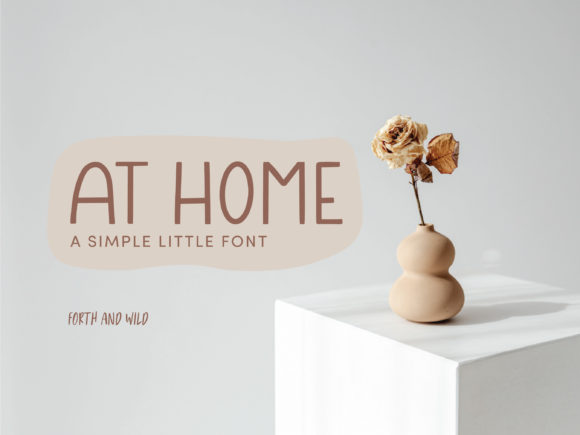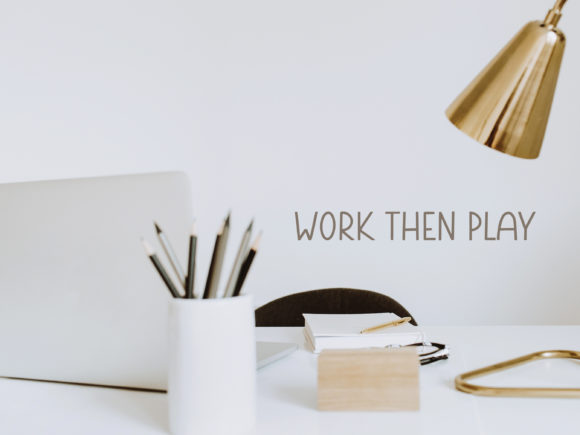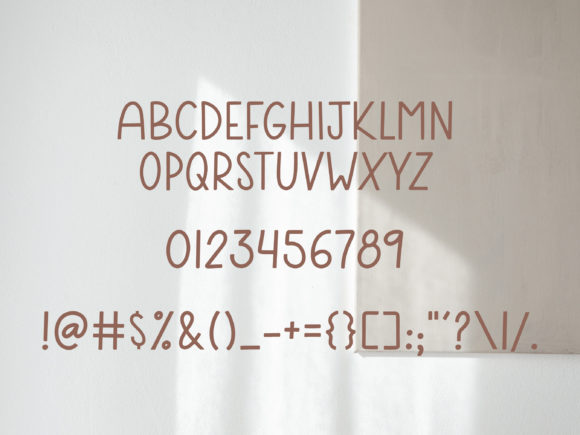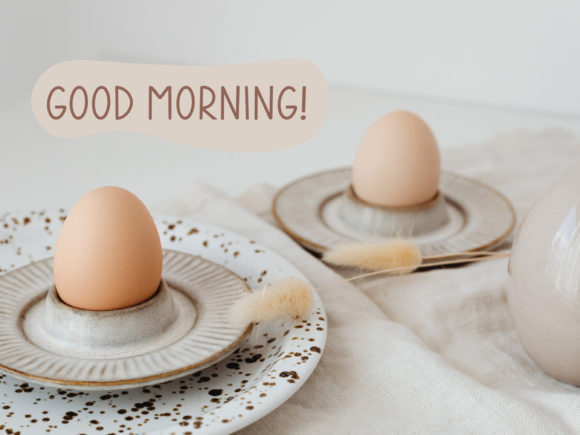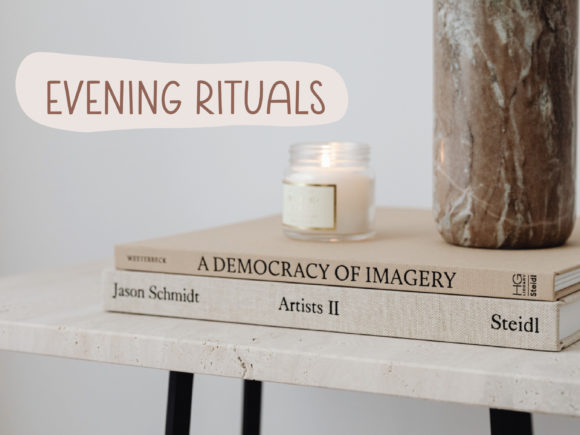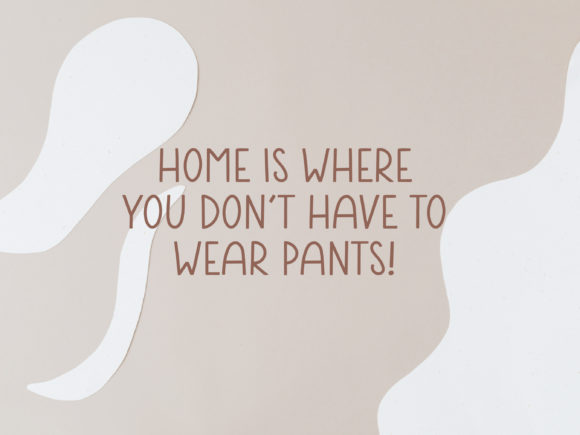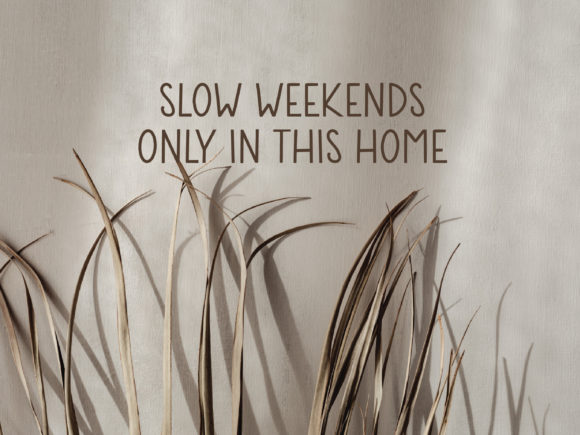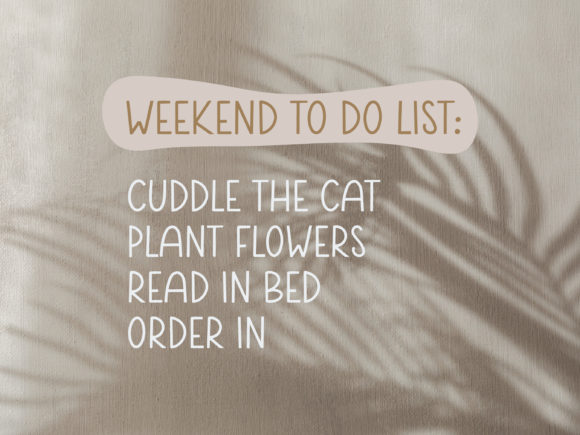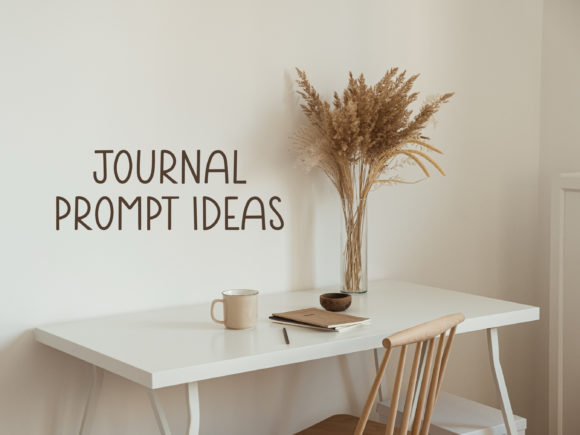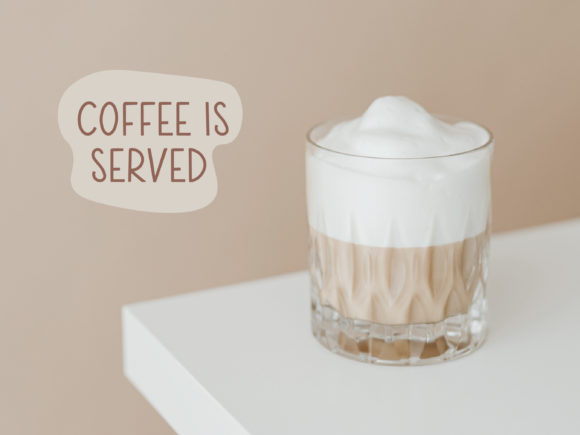
At Home Font
About At Home Font
At Home is a clean, simple and neat handwritten font.
Whether you are using it for cartoon-related designs, children games, quotes, titles, brand names, book covers, posters, or just any creation that requires a touch of joy, this font is a great choice.